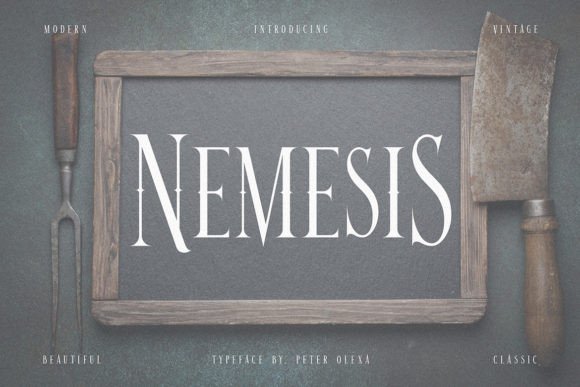
Behold the Nemesis Font, a sartorial masterpiece that ignites a new era of typographic artistry. Crafted by the visionary minds at JumboDesign, Nemesis transcends the boundaries of ordinary serifs, unveiling a realm of sophistication, distinction, and undeniable allure. Each letter, a stroke of genius, commands attention with its bold, sweeping strokes and graceful curves, orchestrating a visual symphony that captivates and enthralls.
Immerse yourself in the world of Nemesis, where elegance and edginess converge, creating a visual tapestry that elevates your designs to new heights. Whether you're a seasoned designer or a creative enthusiast, Nemesis Font beckons you to explore the limitless possibilities of typographic expression.
Whether you're crafting logos that demand attention, headlines that resonate, or body text that captivates, Nemesis Font is your trusted companion. Its innate versatility lends itself to a myriad of applications, from branding projects that exude luxury and prestige to editorial layouts that ooze sophistication and charm.
With Nemesis Font, you'll discover a boundless canvas for creativity, enabling you to weave tales of elegance, passion, and intrigue through the written word. Its distinct character shines through, leaving an indelible impression on all who encounter it.
Adorn your digital creations with Nemesis Font, and watch as your designs metamorphose into captivating works of art. Experience the transformative power of typography as your words dance across the screen, imbued with a newfound grace and allure.